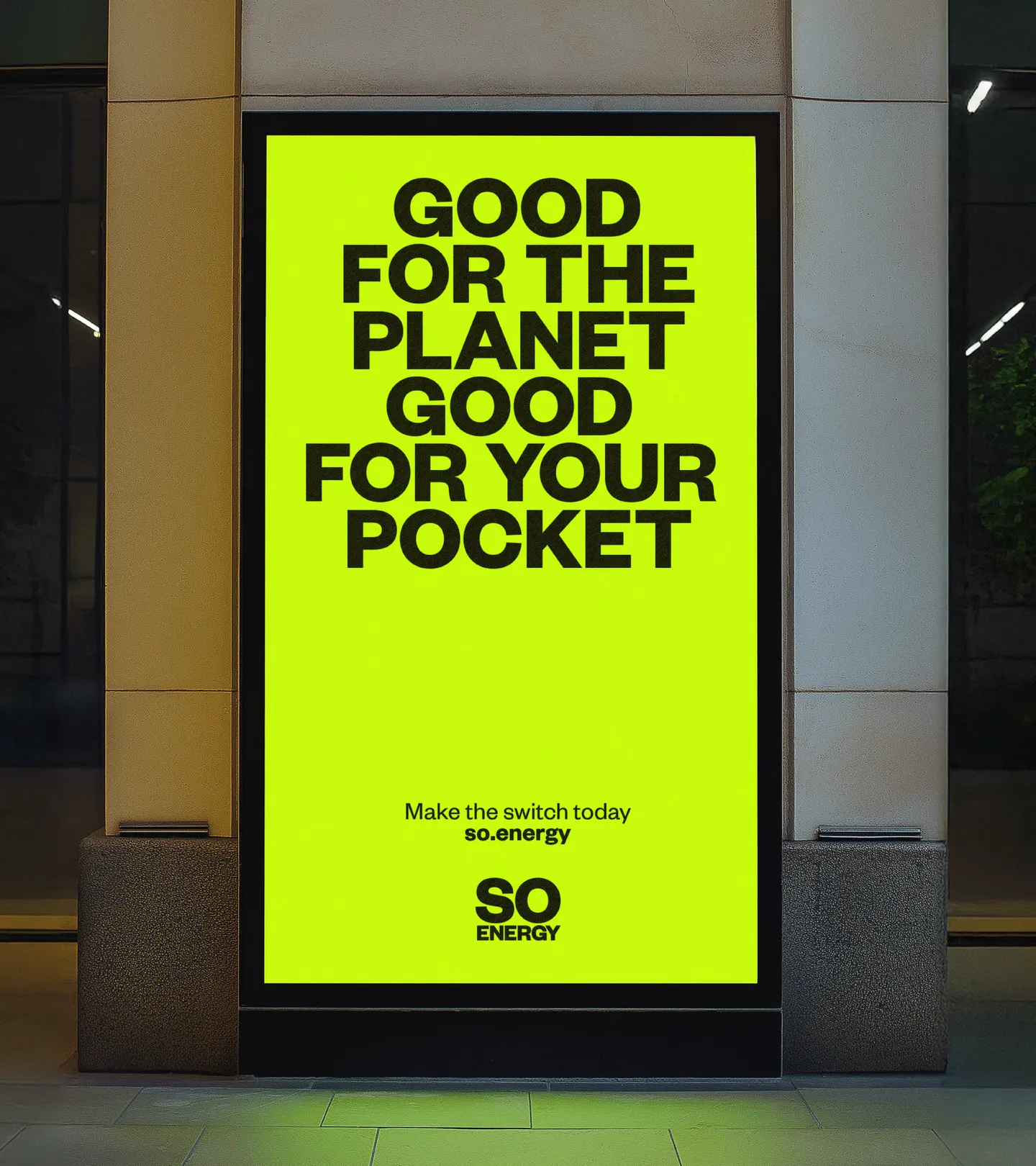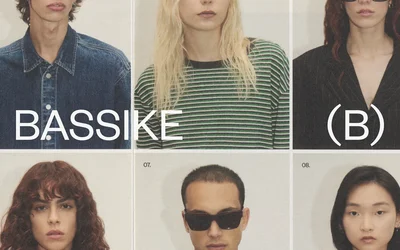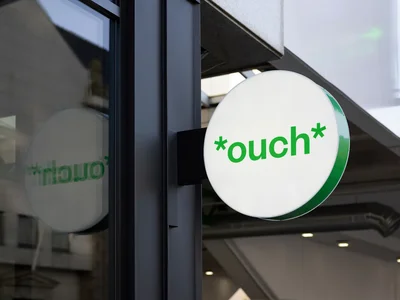
Inter vs Founders Grotesk
Inter is the most practical free replacement for Founders Grotesk in digital product work. At 82% similarity, both share neo-grotesque DNA tuned for professional contexts. Inter's variable font support, optical sizing, and broader language coverage (including Cyrillic and Greek) make it the strongest drop-in for teams migrating from Founders Grotesk, though it trades the tight editorial density that makes Founders Grotesk distinctive.
| Feature | Inter | Founders Grotesk |
| Variable Font | Yes | No |
| Weights | Variable (100-900) | Multiple |
| Language Support | latin, latin-extended, cyrillic, cyrillic-extended, greek, greek-extended, vietnamese | latin, latin-extended |
Performance Comparison
| Metric | Inter | Founders Grotesk |
| Weights | 9 (var) | N/A |
| Italics | Yes | N/A |
| Variable Font | Yes (2 axes) | N/A |
| Language Groups | 7 | N/A |
| x-Height Ratio | 0.546 | N/A |
| Cap Height Ratio | 0.728 | N/A |
Recommended: Inter
- Shares Founders Grotesk's modern character
- Particularly suited for product UI and dashboards and SaaS marketing sites
- Variable font with continuous weight adjustment
- Supports 7 scripts including cyrillic and cyrillic-extended
- Delivers a modern, clean, professional aesthetic
Consider: Founders Grotesk
- Designed specifically for editorial and branding